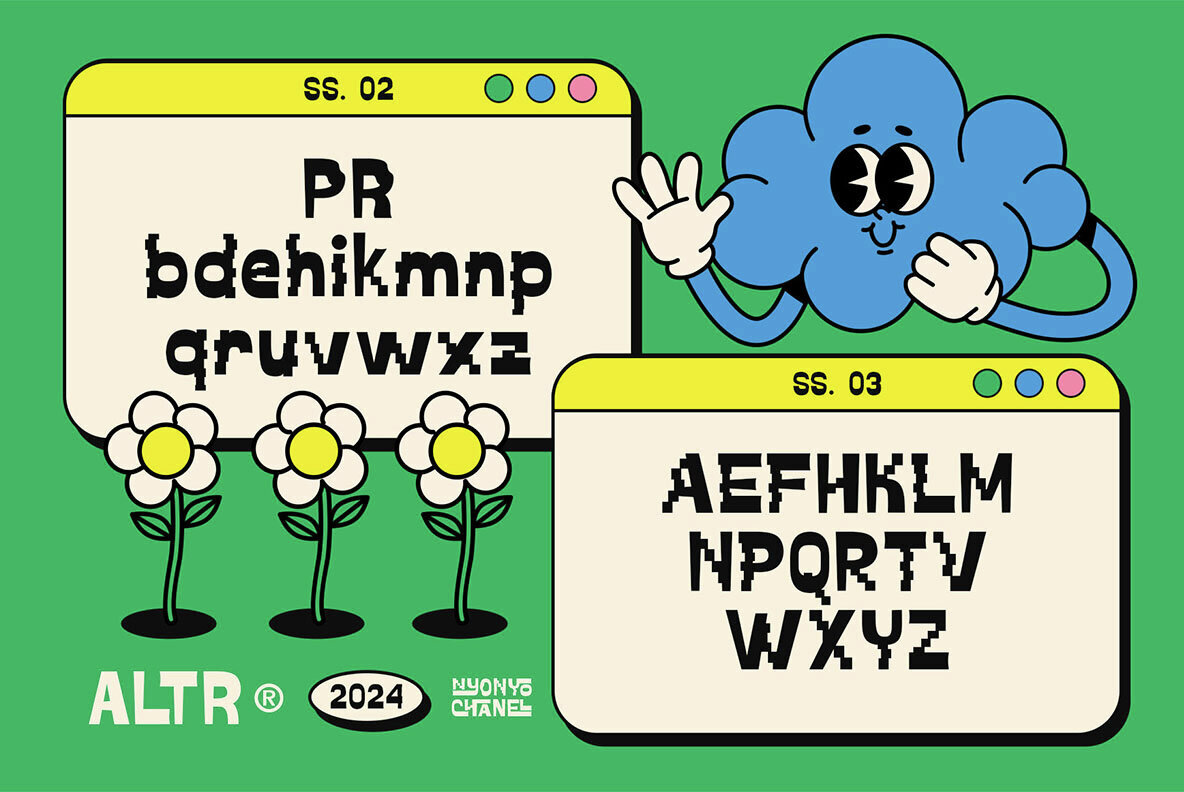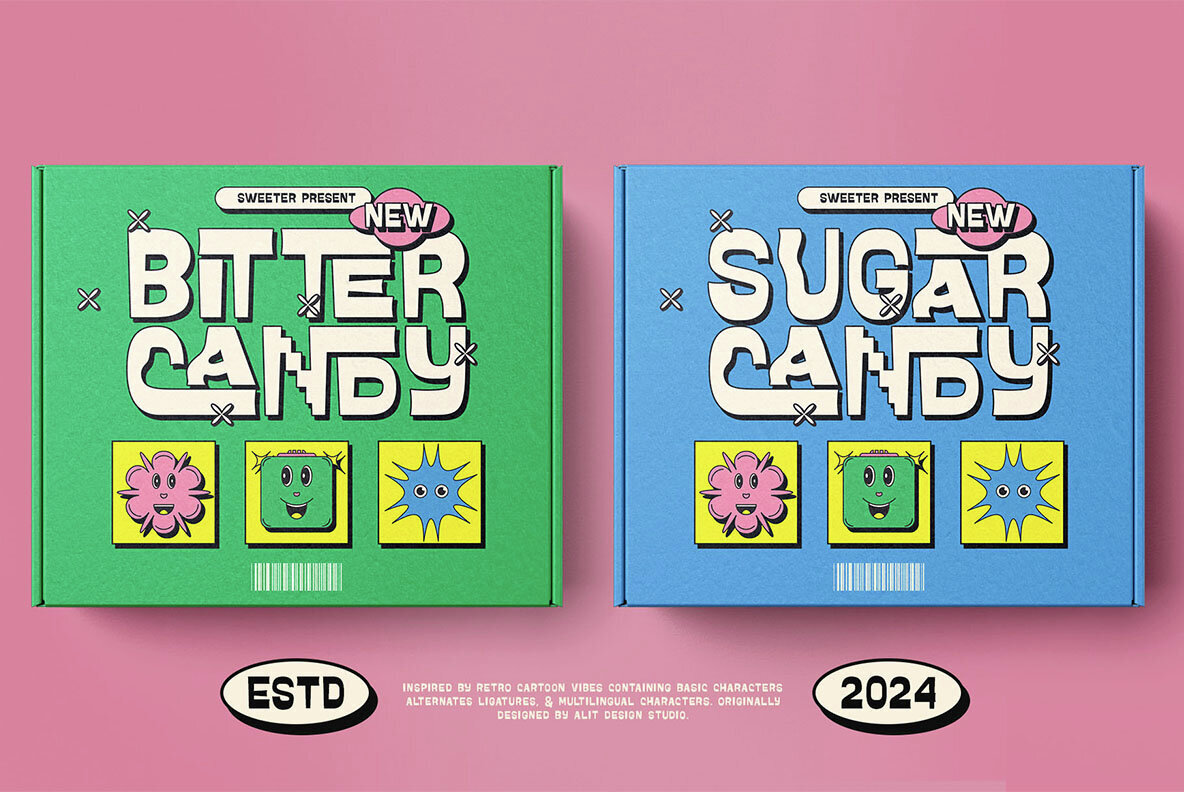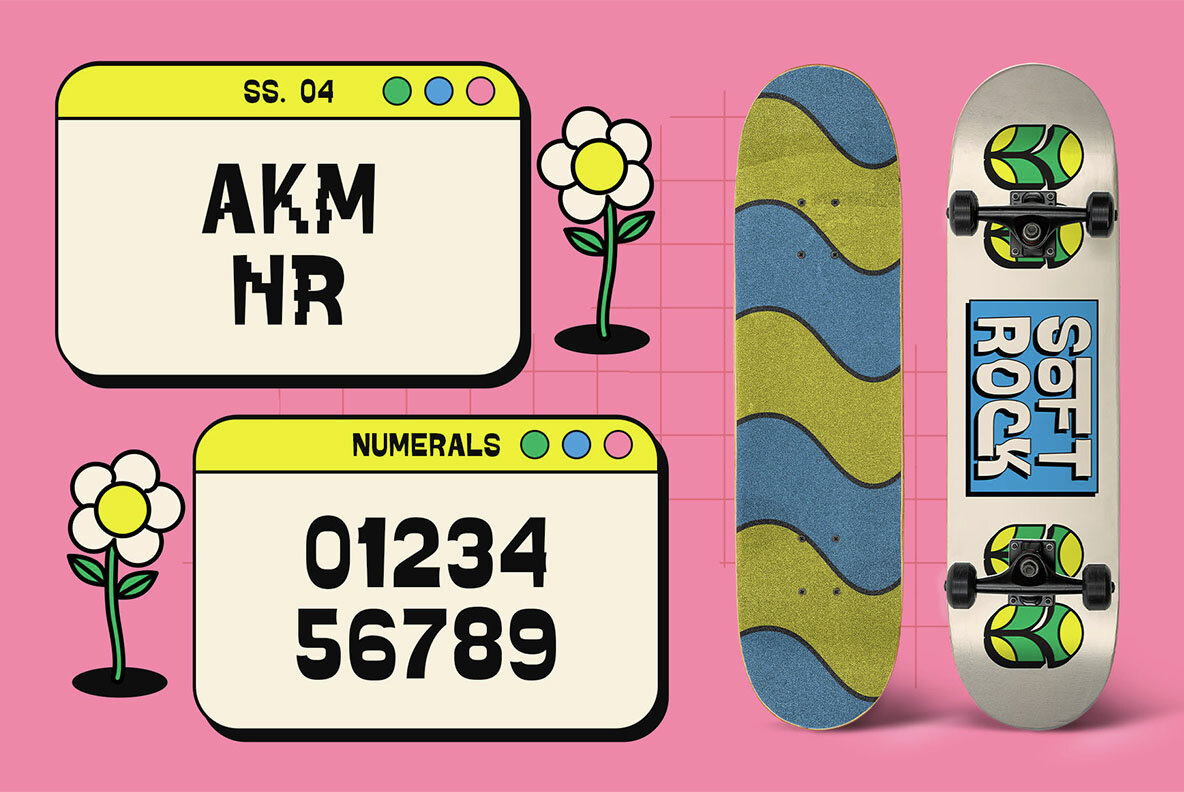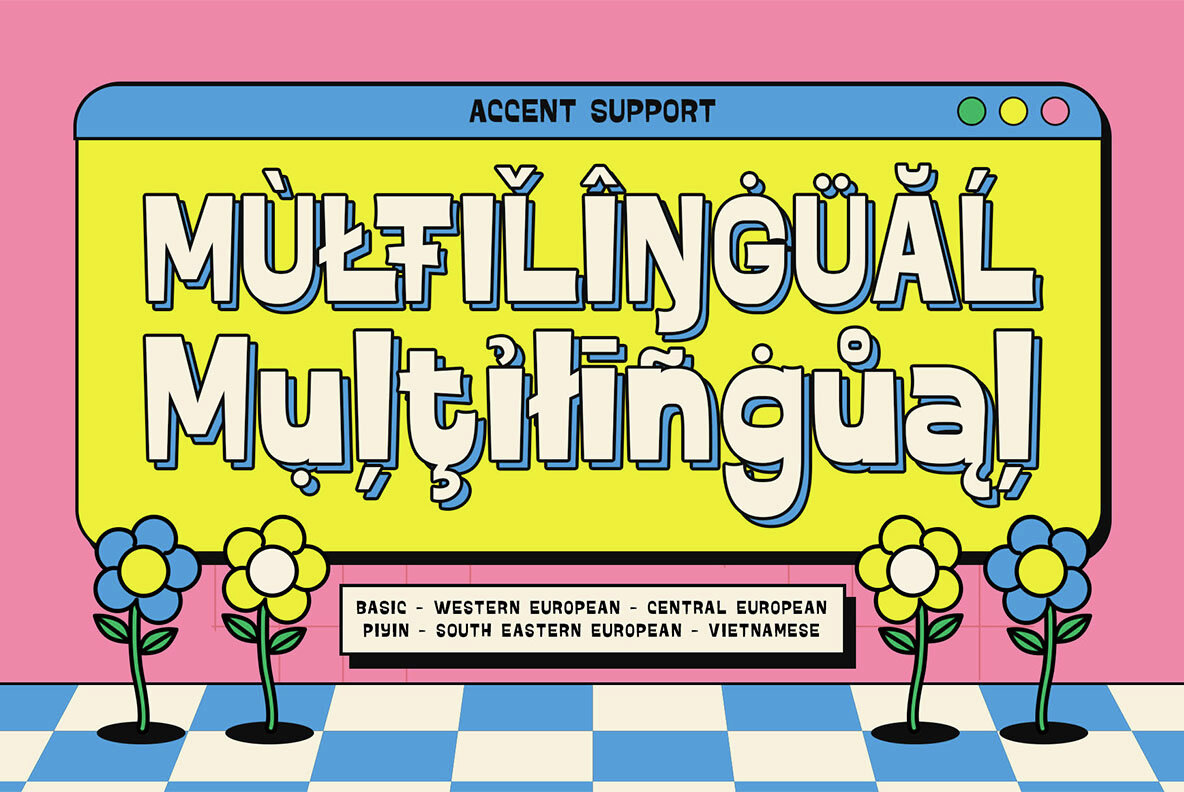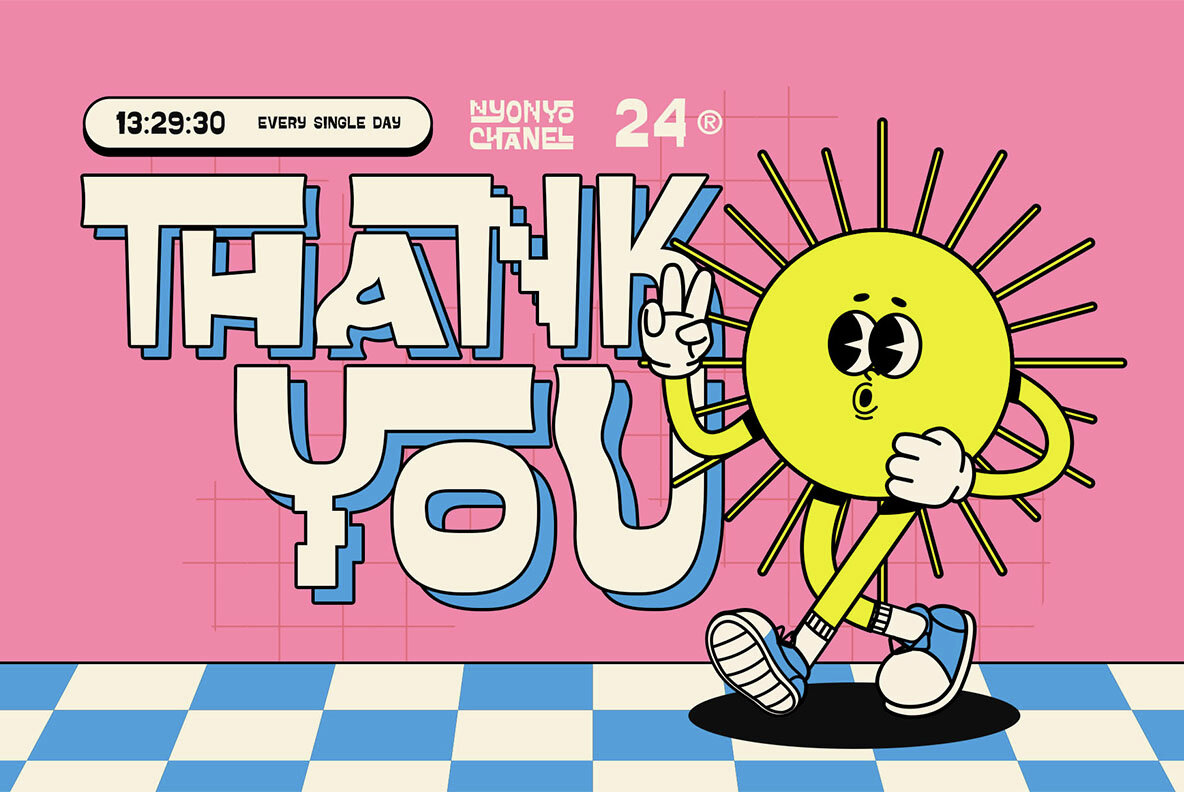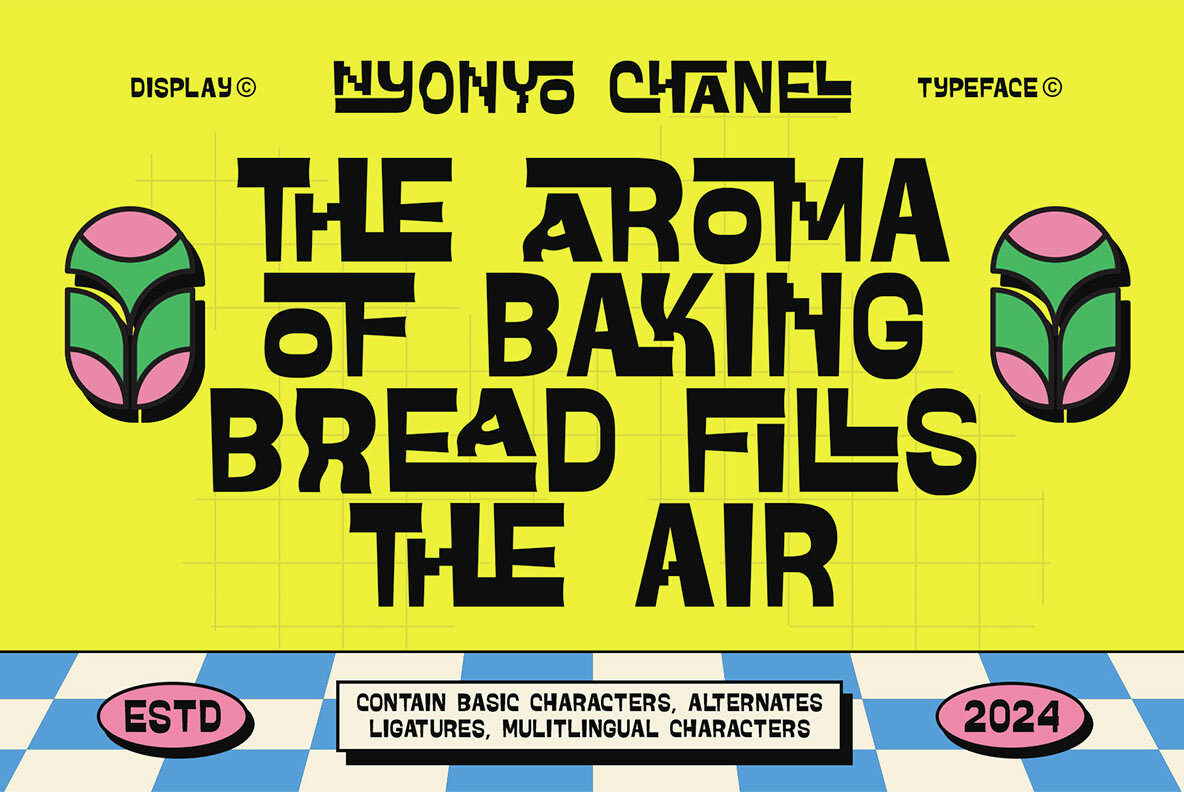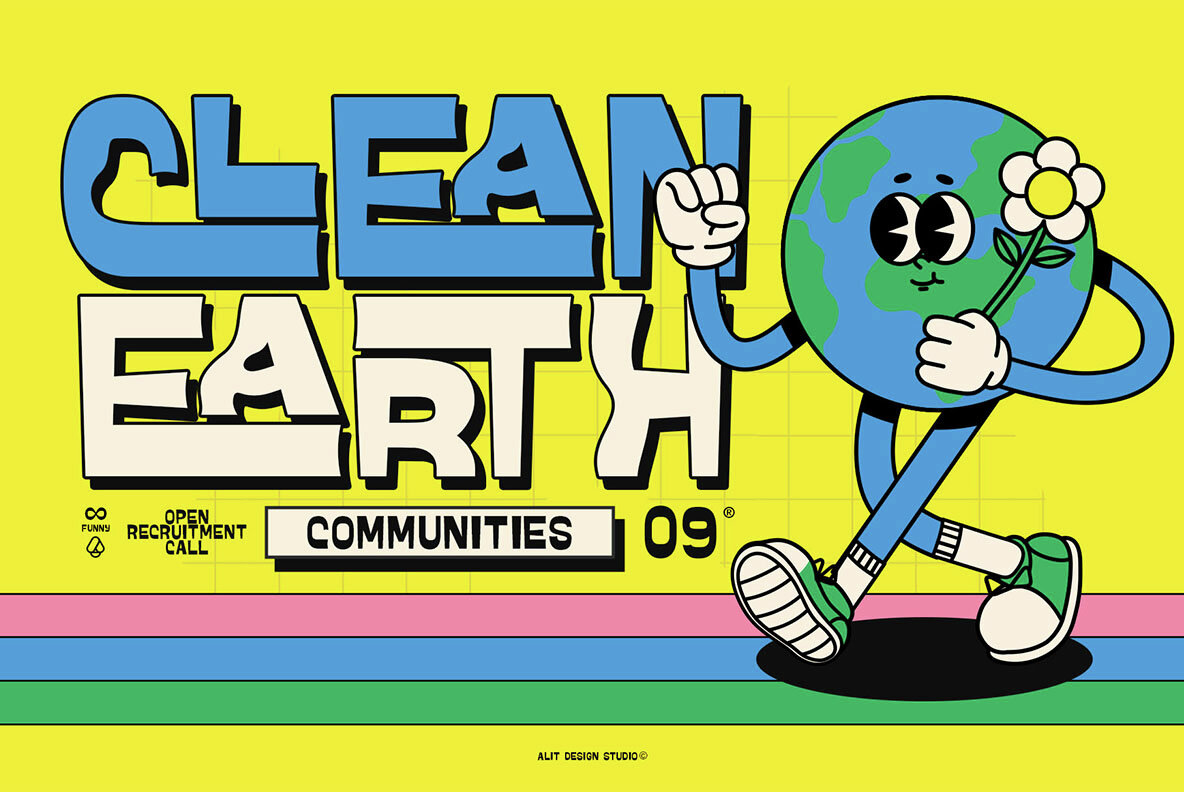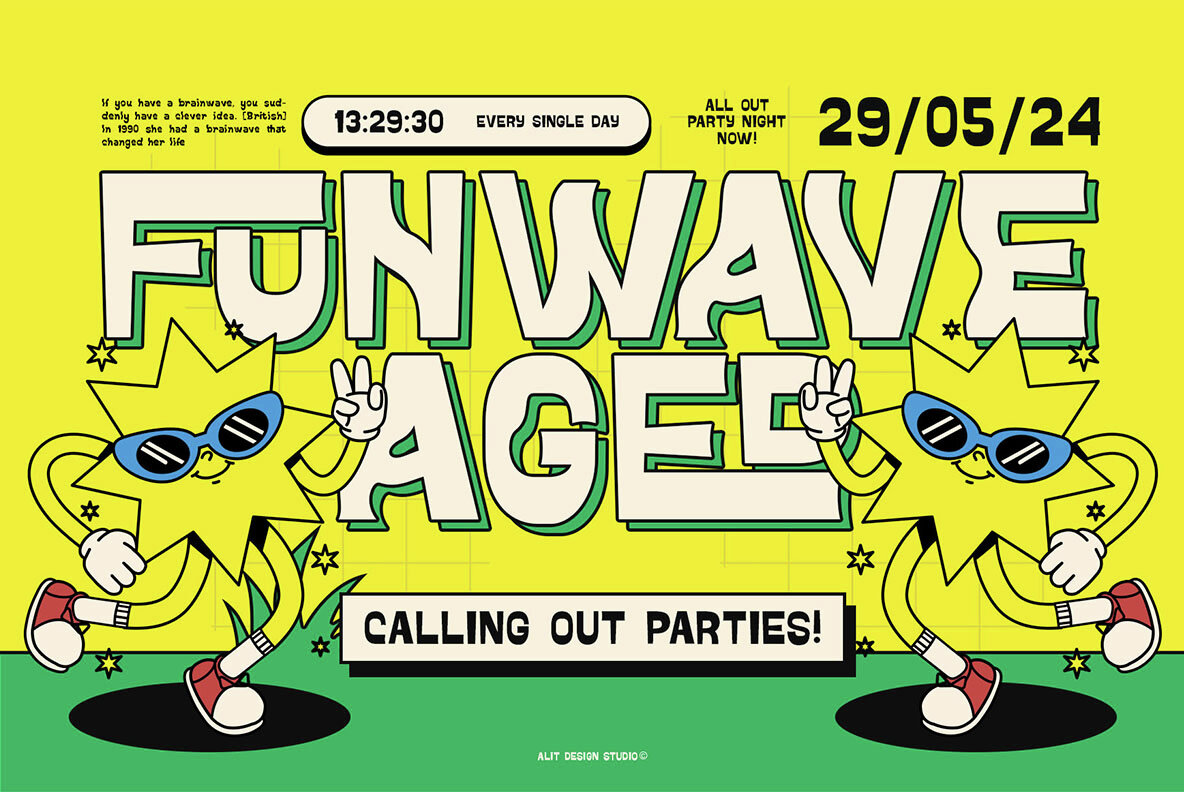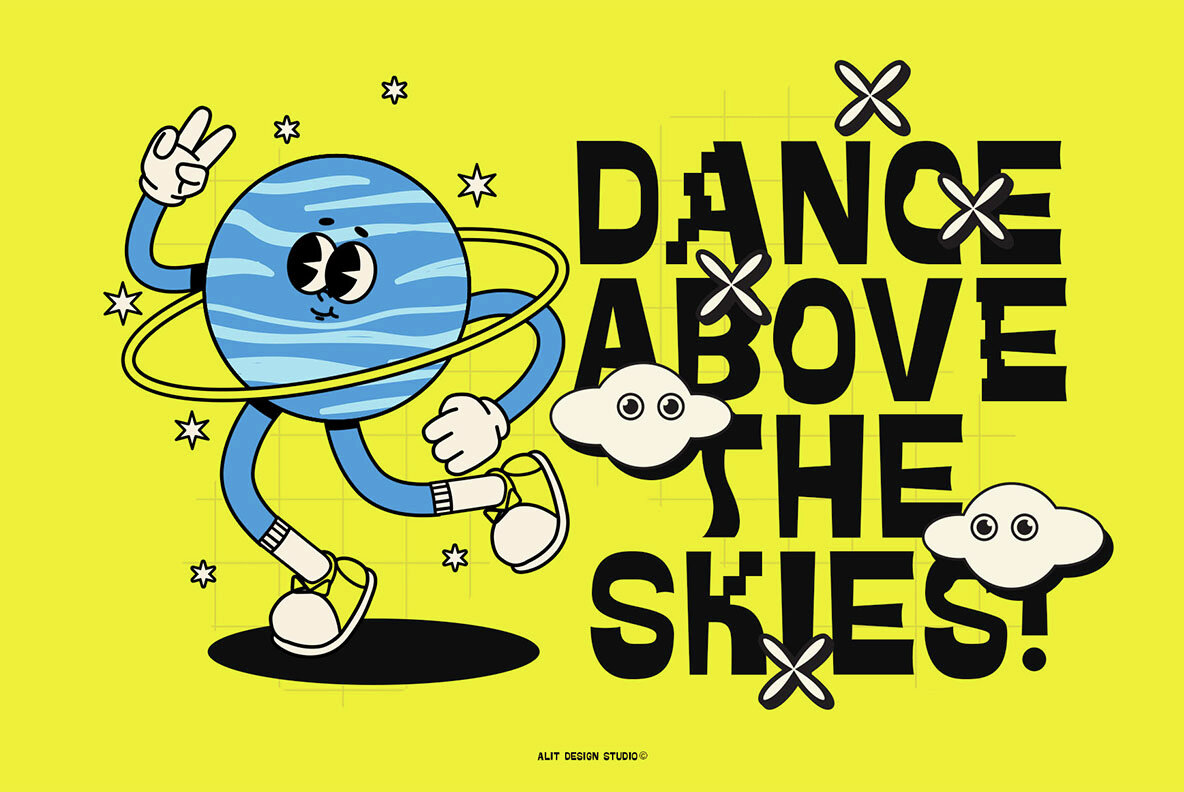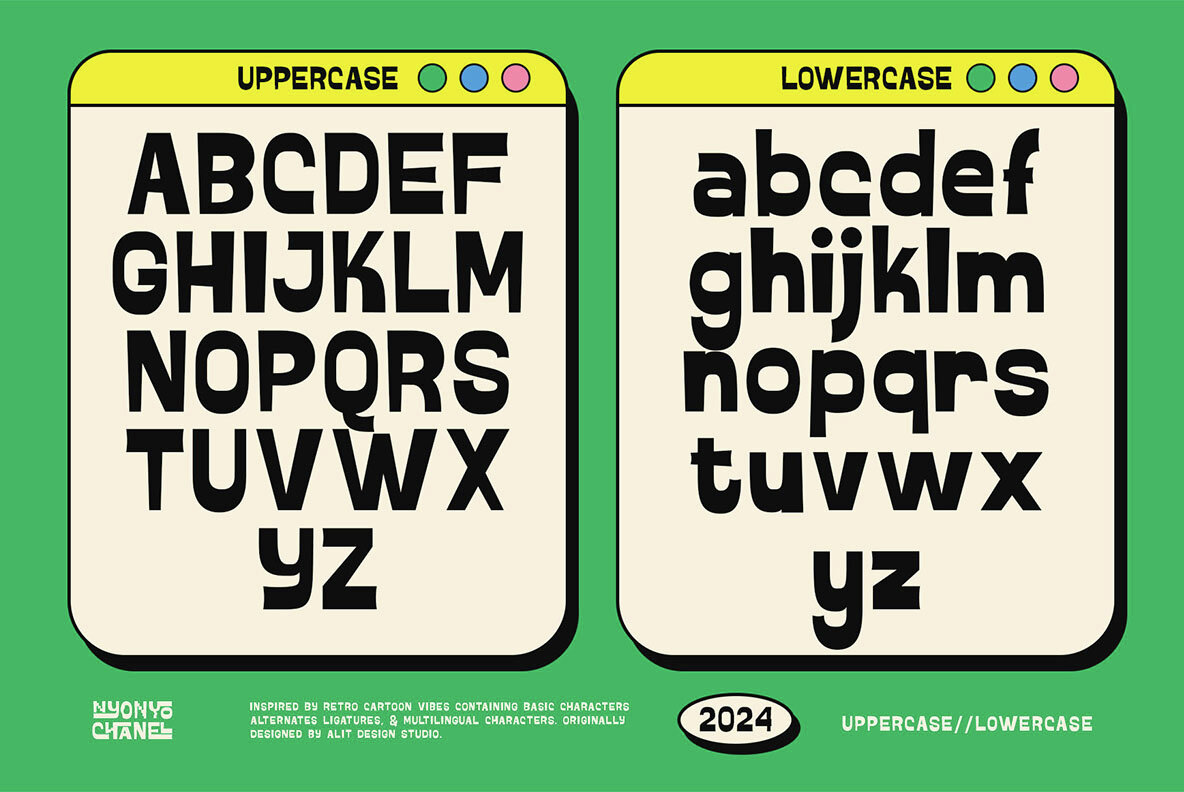
Nyonyo Chanel Font
Nyonyo Chanel Regular
Nyonyo Chanel Typeface Introducing Nyonyo Chanel Typeface: Unleash Your Creativity with a Groovy Twist! Dive into a world of vibrant expression with the Nyonyo Chanel Typeface, a one-of-a-kind groovy display font that redefines the art of typography. Perfectly blending retro vibes with modern flair, this font is your go-to choice for creating eye-catching designs that captivate and inspire. Why Choose Nyonyo Chanel? Whether you’re designing posters, logos, social media graphics, or any creative project, the Nyonyo Chanel Typeface offers unparalleled versatility and flair. Its bold, playful design is perfect for brands and individuals looking to make a memorable impact. Specifications: Perfect For: Add a Groovy Touch to Your Designs with Nyonyo Chanel Typeface! Stand out from the crowd and let your creativity flow with the Nyonyo Chanel Typeface. Its unique blend of wave, pixel, and ligature shapes makes it an essential tool for any designer aiming to create vibrant, impactful designs. Get your hands on this funky, fresh typeface today and transform your projects into unforgettable visual experiences.